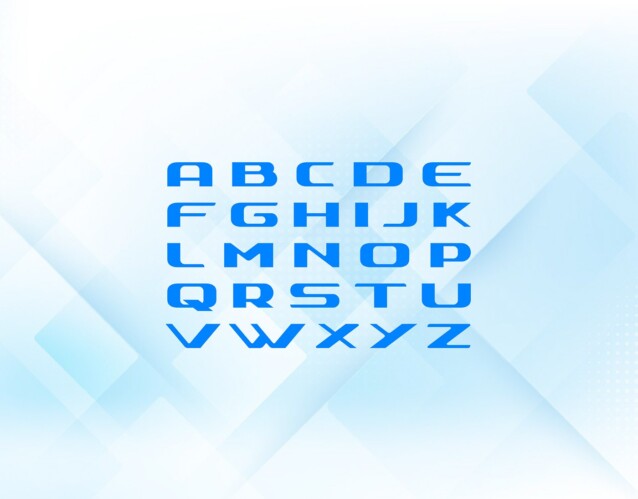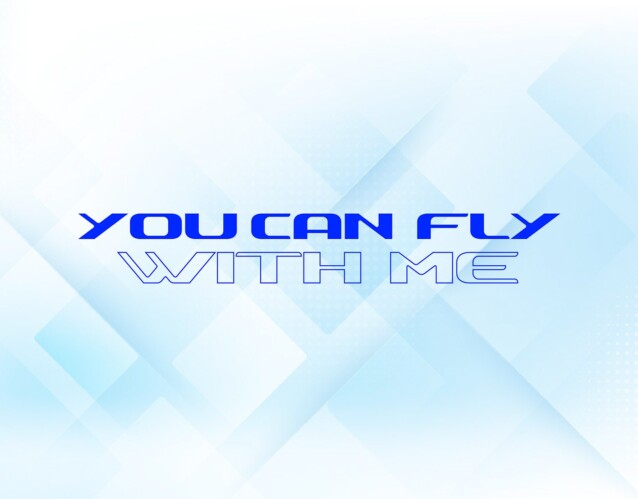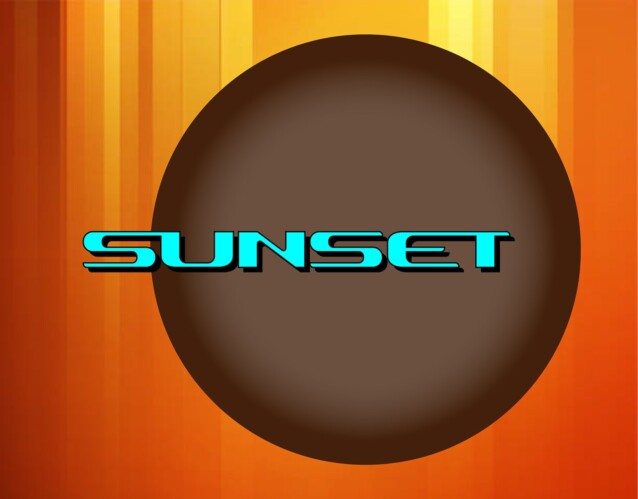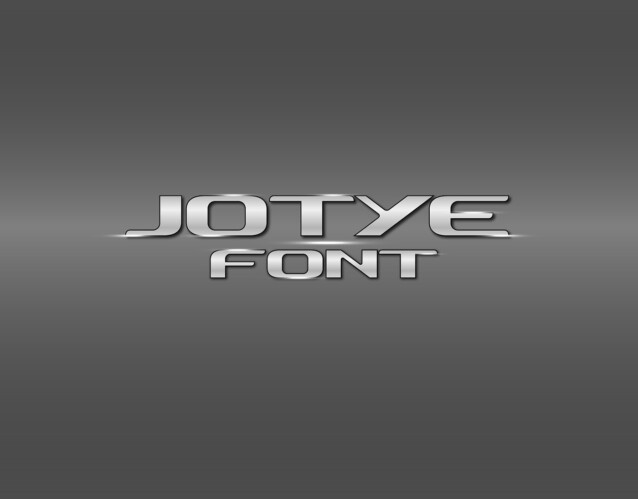
Jotye Font
Jotye Font is a unique and modern display font, elegant and modern feel character set. It’s a celebration of English culture and heritage, encapsulated in a font that’s both modern and rooted in tradition. Perfect for wall displays, branding project, megazine, social media post logos, advertisements, product designs, labels, photography and more.